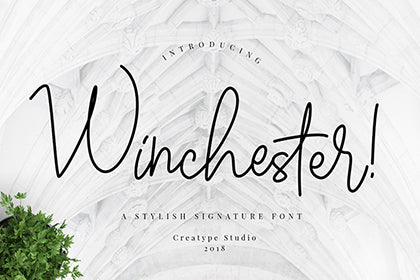
Free Winchester Script Font Demo
Featuring the gorgeous free winchester script font demo. This is a downloadable free typeface file brought to you by Free Design Resources. Easily amaze your audience with this fancy font and make your graphic designs pop up from the crowd.